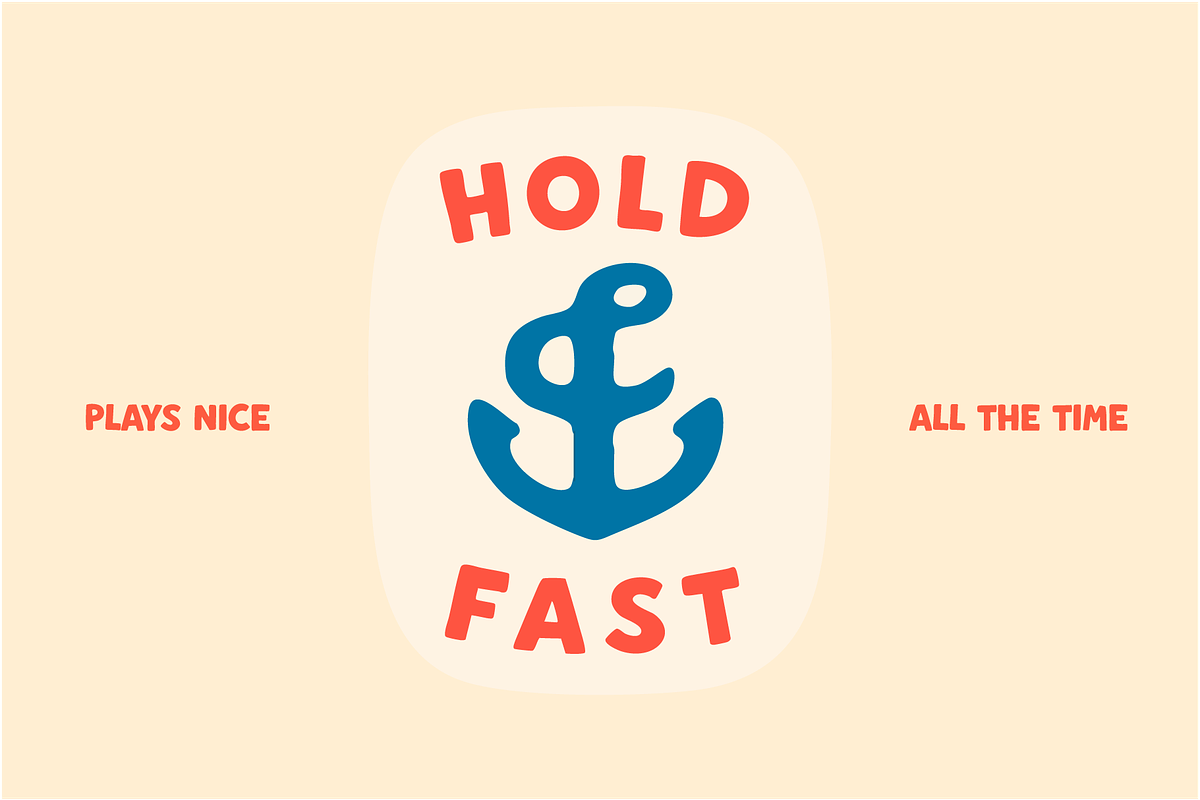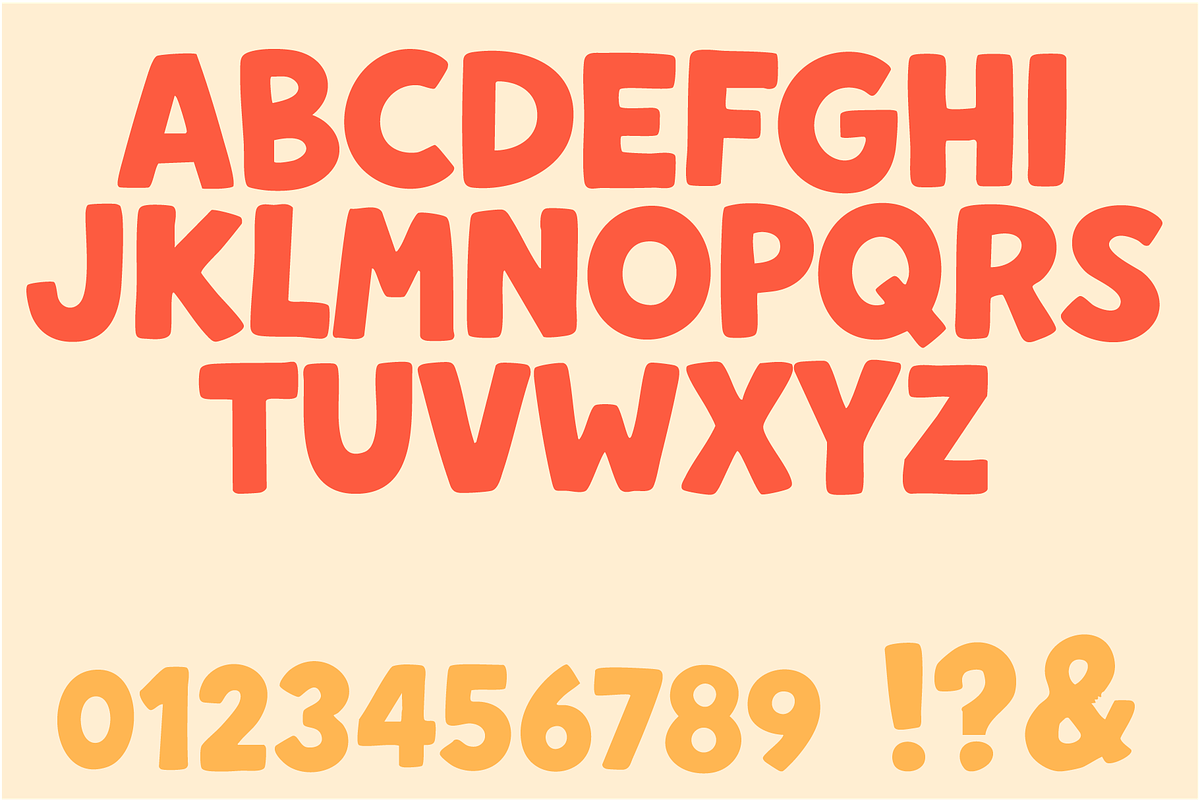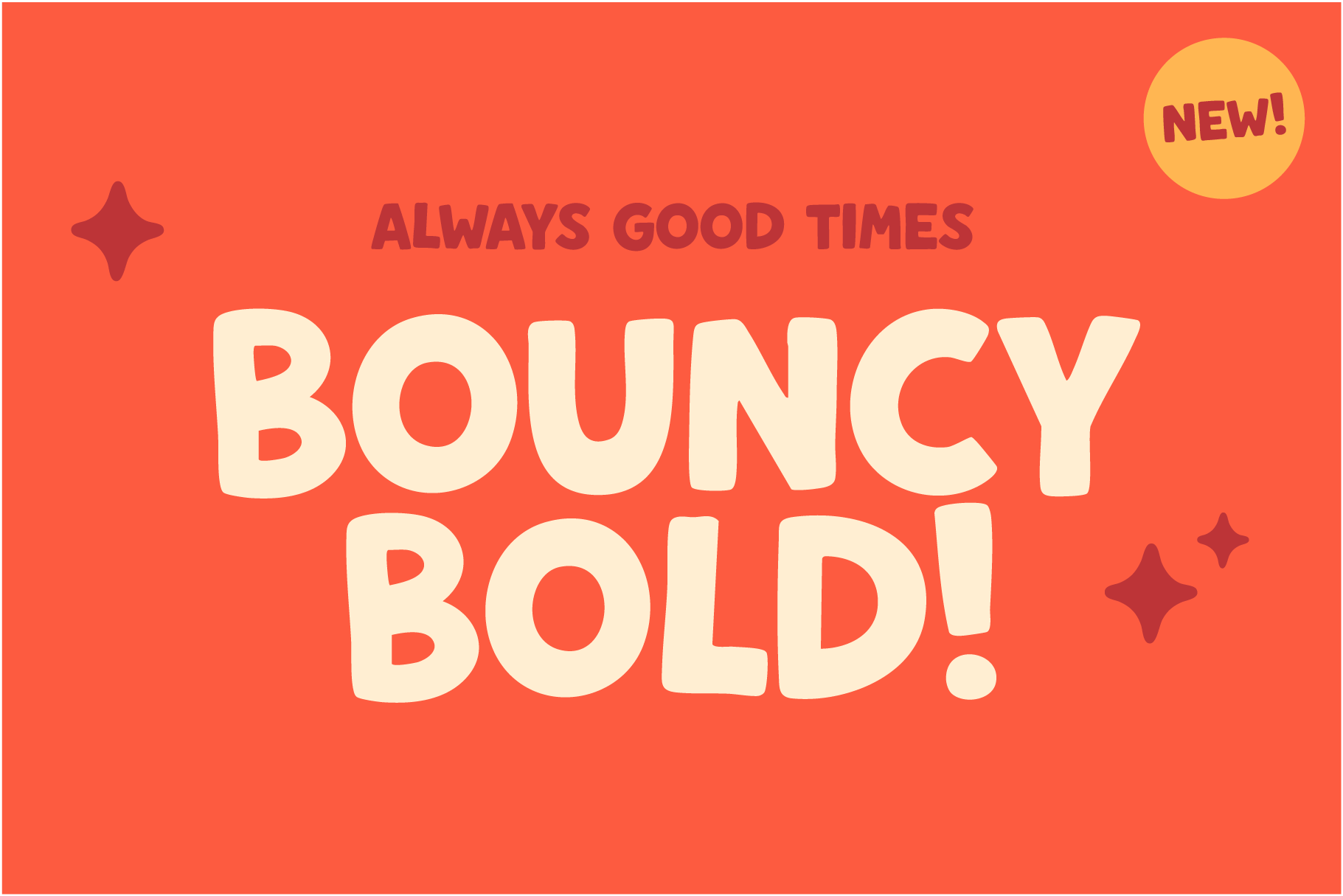
Bouncy Bold: The Playful & Bold Font
Bouncy Bold – The Playful & Bold Font That Brings Words to Life
Introducing Bouncy Bold, the ultimate bouncy, bold display font designed to bring energy, fun, and personality to your projects! With its hand-drawn charm, chunky curves, and playful movement, this typeface is perfect for brands, creatives, and designers looking to stand out.
Why Choose Bouncy Bold? ✅ Bold & Eye-Catching – Thick, lively letterforms command attention in logos, headlines, and packaging. ✅ Handcrafted Charm – Organic, slightly wobbly shapes give a warm, approachable feel. ✅ Versatile & Fun – Ideal for branding, social media graphics, product packaging, posters, and children’s designs. ✅ Complete Character Set – Includes uppercase A-Z, numbers 0-9, punctuation, symbols, and an ampersand for full design flexibility. ✅ Optimized for Web & Print – Crisp, high-quality letters that look great on everything from digital screens to printed materials.
Perfect For: 🎨 Creative Brands – Quirky businesses, handmade products, indie shops. 🍭 Food & Beverage – Candy brands, snack packaging, café menus. 📢 Social Media & Marketing – Attention-grabbing Instagram posts, ads, and banners. 🎉 Event & Party Designs – Invitations, posters, and fun-themed merchandise.
Unlock the Power of Playful Typography Bouncy Bold is more than just a font—it’s a statement. Whether you're crafting a vibrant brand identity, designing playful packaging, or creating engaging social media content, this typeface delivers maximum impact with a joyful twist.
🎉 Make Your Words Bounce with Bouncy Bold! 🎉